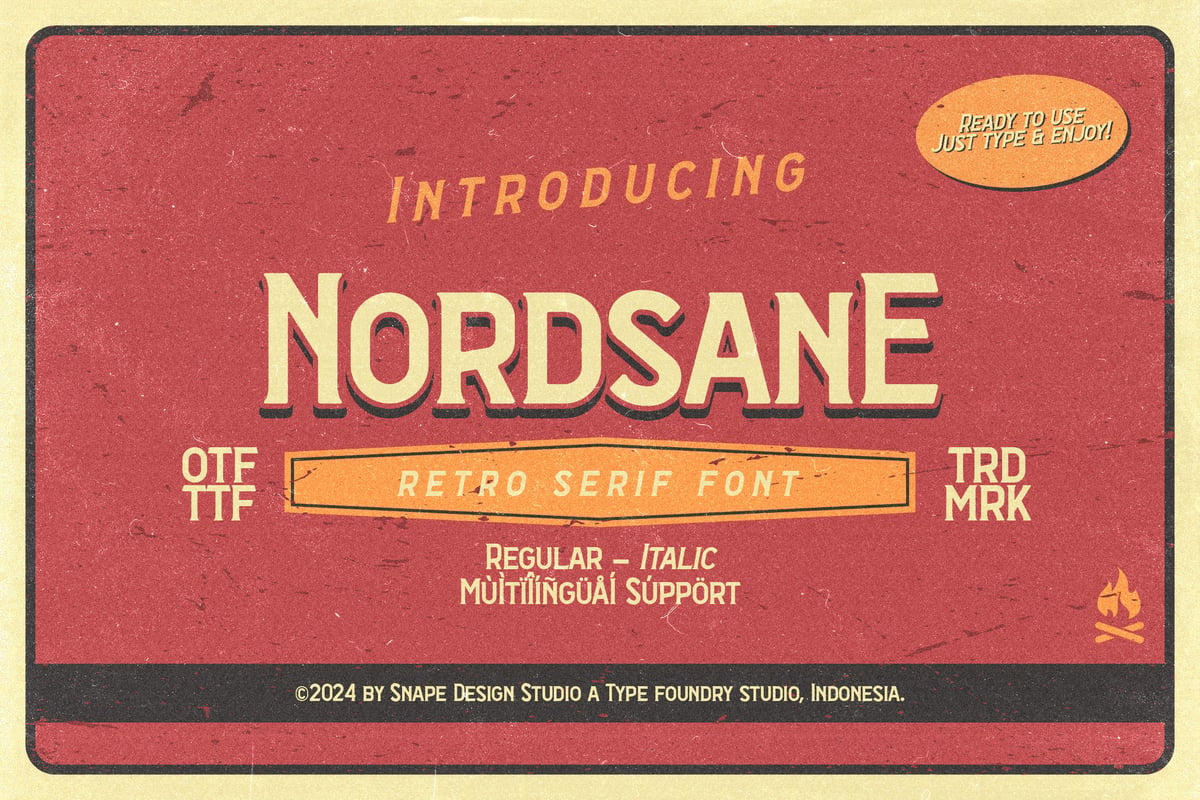
Nordsane - Retro Serif Font
Transport your designs back in time with Nordsane's authentic mid-century charm and distinctive serif character. This retro serif font captures the essence of vintage print materials, blending distinctive serifs with clean lines for a classic yet captivating aesthetic. Drawing inspiration from mid-century typography, Nordsane delivers timeless design that resonates across generations. Versatile and stylish, this typeface excels in branding projects, packaging design, and editorial layouts, effor...